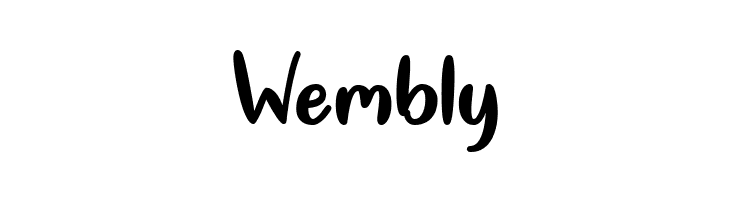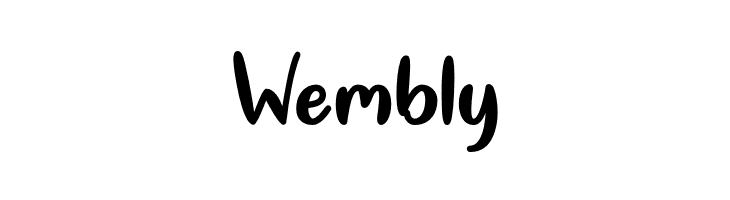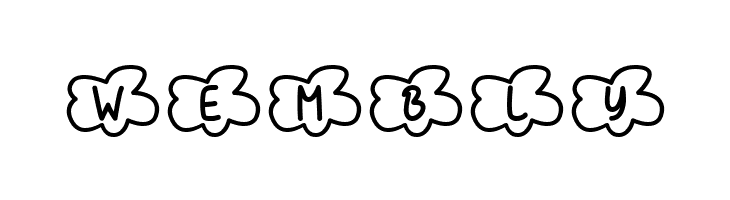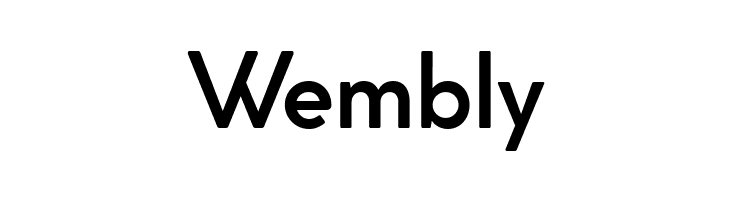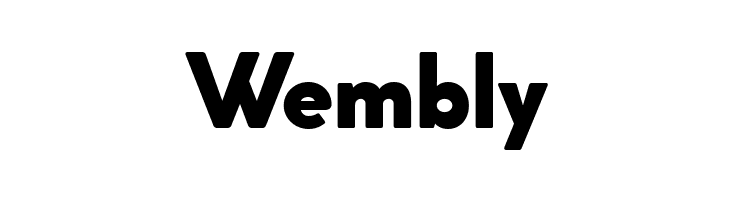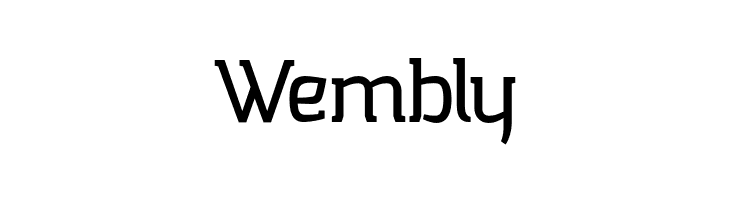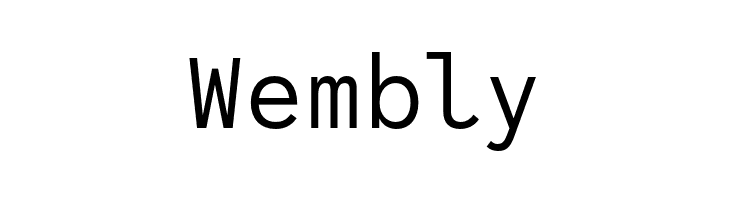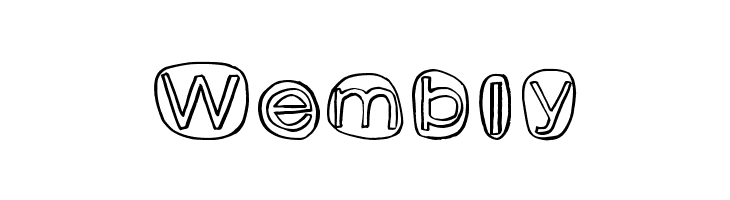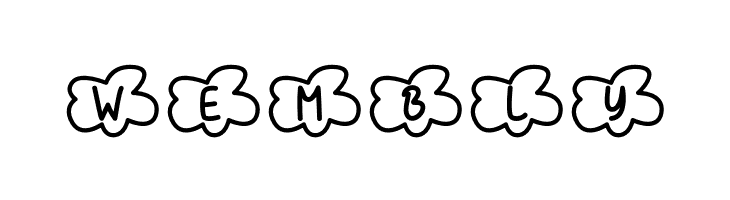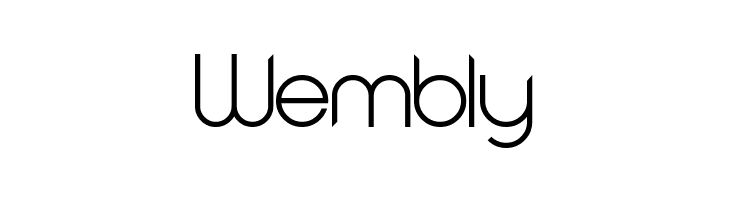
( Vladimir Nikolic - www.coroflot.com/vladimirnikolic )
A bold, outlined font with a gradient effect for a three-dimensional look.
( Vladimir Nikolic - www.coroflot.com/vladimirnikolic )
Bold, italicized font with a three-dimensional outline effect.
( Vladimir Nikolic - www.coroflot.com/vladimirnikolic )
A bold, outlined font with a modern and geometric style.
( Vladimir Nikolic - www.coroflot.com/vladimirnikolic )
A bold, geometric font with a modern and impactful style.
( Misti's Fonts - mistifonts.com/ )
A playful, handwritten font with smooth, rounded edges and a friendly appearance.
( Misti's Fonts - mistifonts.com/ )
A playful, handwritten font with smooth, rounded edges and a whimsical style.
( Darrell Flood )
A bold, playful, hand-drawn font with rounded, irregular characters.
( Misti's Fonts - mistifonts.com/ )
A playful font with characters enclosed in cloud shapes, ideal for cheerful designs.
A playful, cloud-themed font with bold, rounded characters.
( Fonts by Misti's Fonts )
A playful, cloud-themed font with bold, rounded characters.
( Fonts by Xerographer Fonts )
A playful, rounded font with a unique outlined, bubble-like style.
( Fonts by Fabrika De Typos - Marcio Hirosse - fabrikadetypos.blogspot.com )
A bold, geometric font with a modular and modern design.
( Fonts by www.junkohanhero.com )
A bold, graffiti-inspired font with a playful and edgy style.
A bold, modern typeface with rounded edges and uniform strokes.
A modern, geometric sans-serif font with bold, clean lines.
( Hanoded - David Kerkhoff - www.hanodedfonts.com )
A playful, hand-drawn font with textured, brush-like strokes.
( Fonts by Dharma Type )
A clean, modern sans-serif font with geometric shapes and uniform strokes.
( 7NTypes - Situjuh Nazara - 7ntypes.com )
A modern serif font with high contrast and elegant strokes.
( 7NTypes - Situjuh Nazara - 7ntypes.com )
An elegant italic serif font with smooth, flowing lines and refined serifs.
( 7NTypes - Situjuh Nazara - 7ntypes.com )
A decorative font with intricate line patterns and an art deco influence.
( Denis Ignatov - mutno.me/fonts )
A bold, rounded font with a playful and friendly style.
( Fonts by www.junkohanhero.com )
A distressed, grungy font with a dripping paint effect.
A bold, rugged font with a hand-drawn, vintage aesthetic.
An elegant and refined italic serif font with smooth, flowing lines.
A clean and elegant serif font with thin, elongated strokes and subtle curves.
An elegant italic font with smooth, flowing lines and a classic appearance.
A refined serif font with elegant, elongated strokes and sharp serifs.
A modern, geometric font with clean lines and a structured appearance.
( elharrak - elharrak fonts - el-harrak.blogspot.com/ )
Bold, geometric display font with high contrast and decorative elements.